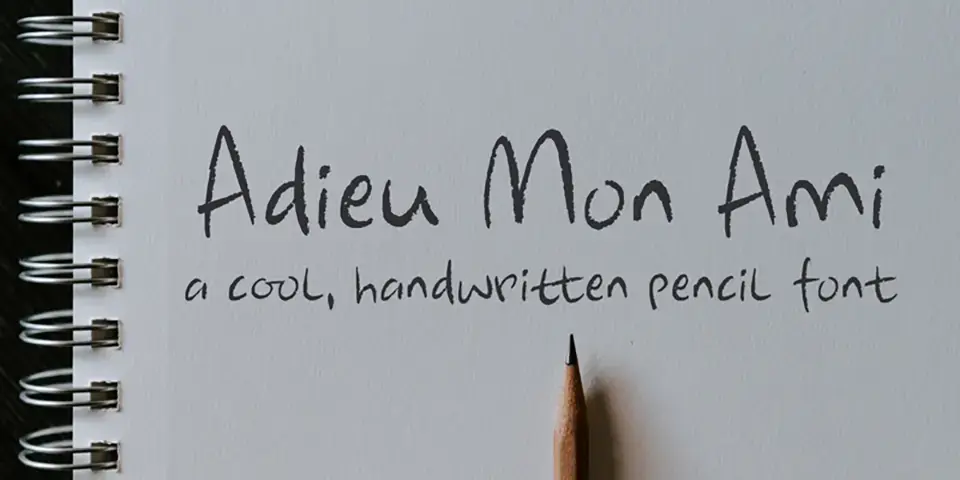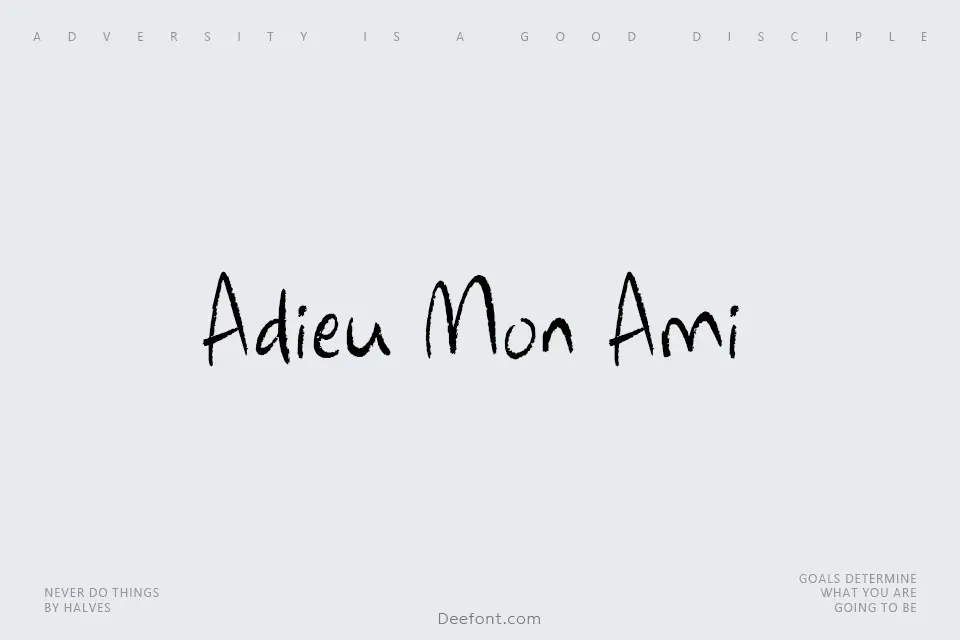
Adieu Mon Ami Font
Adieu Mon Ami is an expressive handwritten script typeface featuring organic, hand-drawn letterforms with a casual, brush-stroke aesthetic. This versatile font captures the warmth of traditional penmanship while maintaining legibility across sizes. Its textured, free-flowing character makes it ideal for product packaging, greeting cards, poster design, event invitations, social media graphics, and decorative headings. With its playful yet refined personality, the font suits brand identity projects, logo design, wedding stationery, and any creative endeavor requiring authentic handwritten charm.